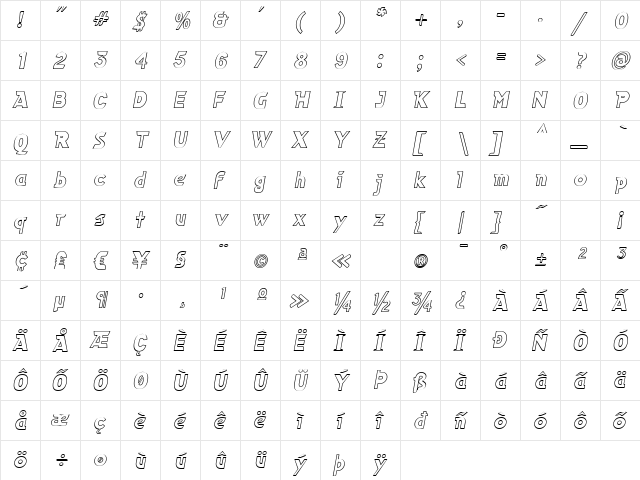
CubanOutline Italic
Design Context for CubanOutline Typeface
CubanOutline is built around its visual character rather than neutral utility — its distinctive forms are designed to make an impression at display sizes. Its italic angle brings a sense of urgency and motion to the letterforms.
Font Pairing: Pair with a clean neutral sans-serif for body copy to let CubanOutline's character lead without overwhelming the composition.
Pro Tip: Use CubanOutline exclusively at display sizes — it was designed to be seen, not read at length. Let a neutral companion handle body copy.